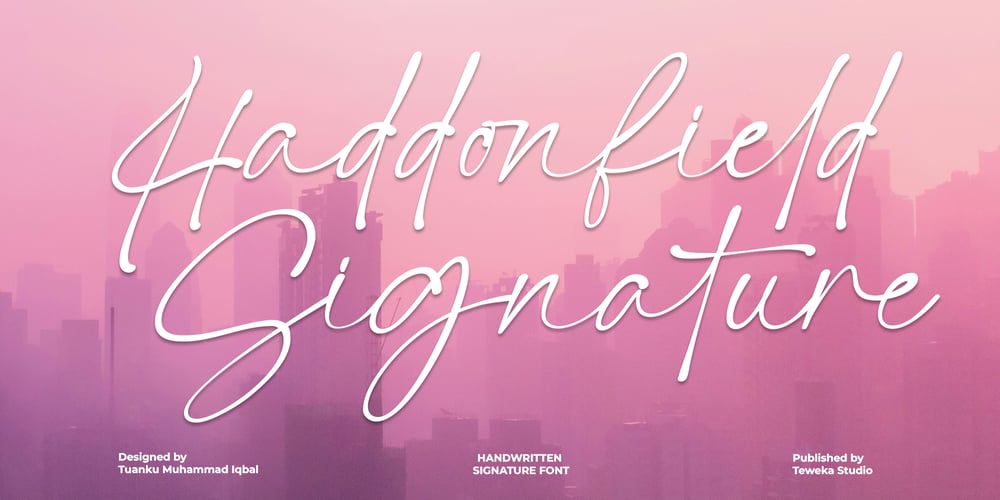
Haddonfield
Haddonfield font
Haddonfield Font Family was designed by Tuanku Muhammad Iqbal and published by Teweka. Haddonfield contains 1 styles and family package options. Have fun, The Haddonfield font is here, a handwritten style font that is packaged well and elegantly, this font comes with a very beautiful beginning and ending swashes. So you have to try it yourself and feel the beauty of your design and you get 347 Glyphs.Thank you for choosing Haddonfield Font.